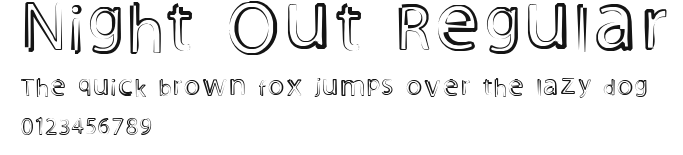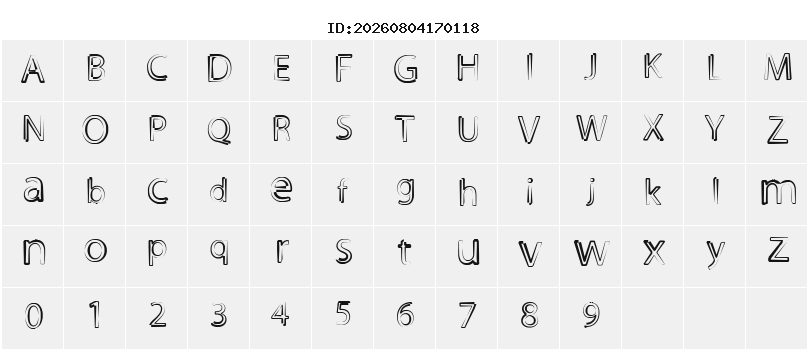
• Font Name: Night Out Regular
• Designer: Bethany Phipps
About Night Out Regular.ttf
Night Out Regular.ttf is a modern, elegant sans-serif font designed for ultimate readability and visual harmony. Perfect for branding, headlines, web design, and print materials.